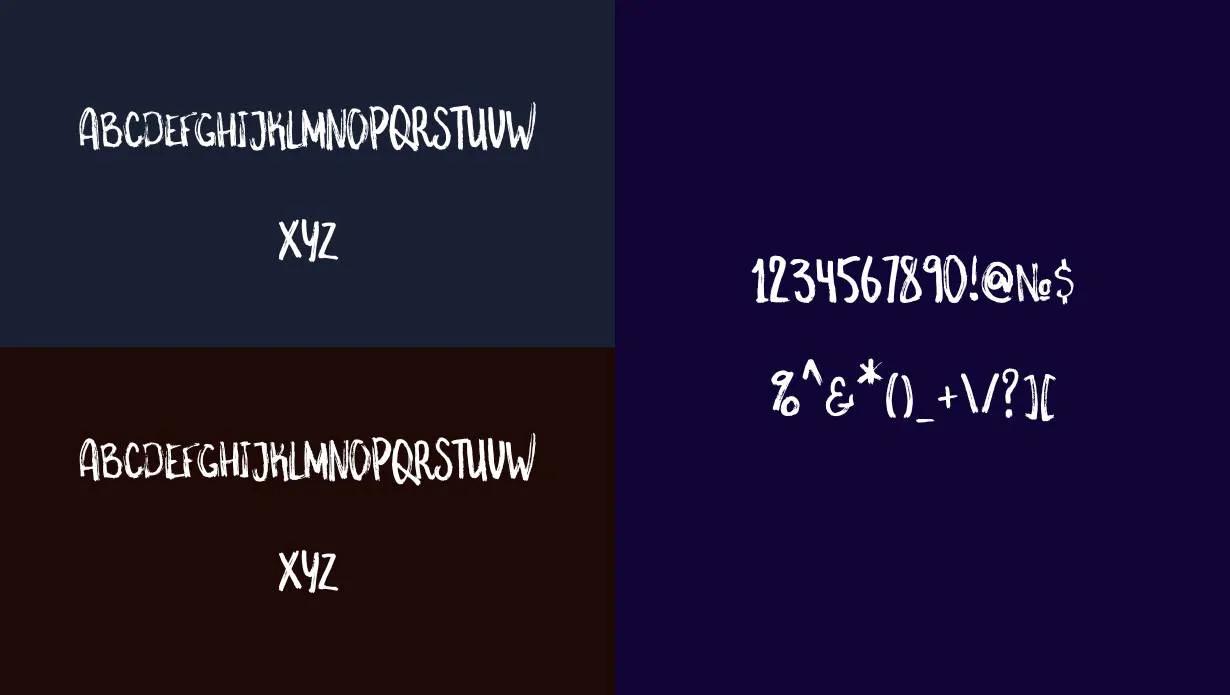
Something Wild Font is a decorative and imaginative typeface known for its unique and artistic design. It’s frequently used in creative advertising, branding, and headline text where designers want to create a memorable visual impact.
The font’s intricate and unconventional letterforms make it stand out and draw attention.
| Name | Something Wild Font |
| Designer | MediaLab Team |